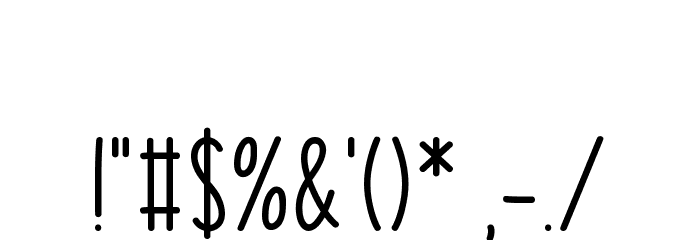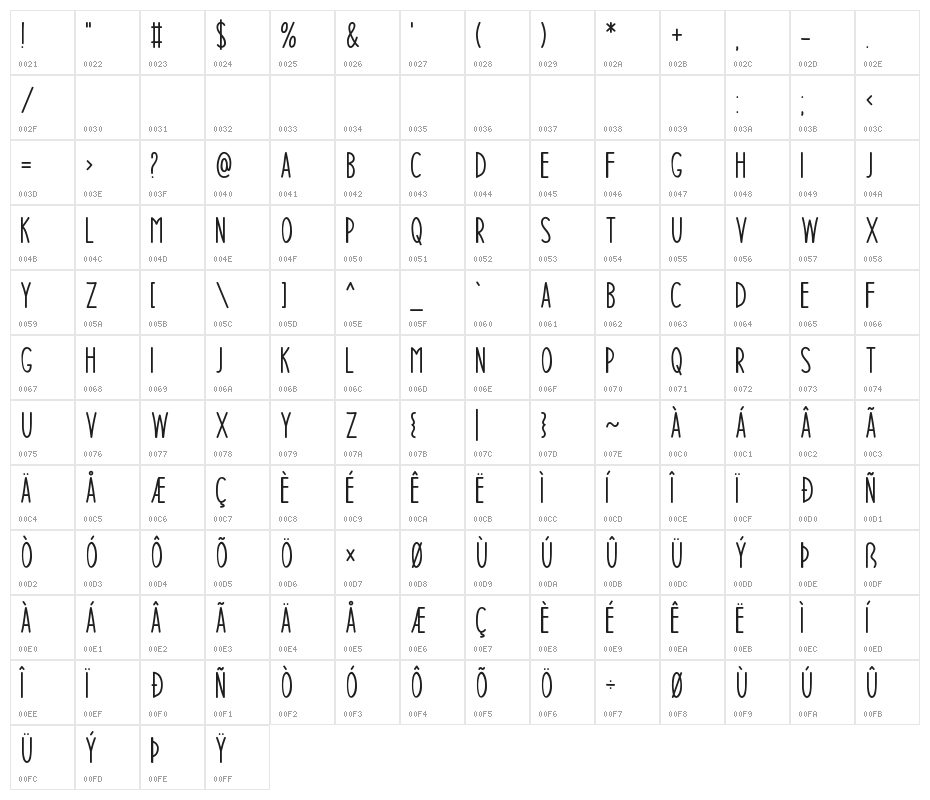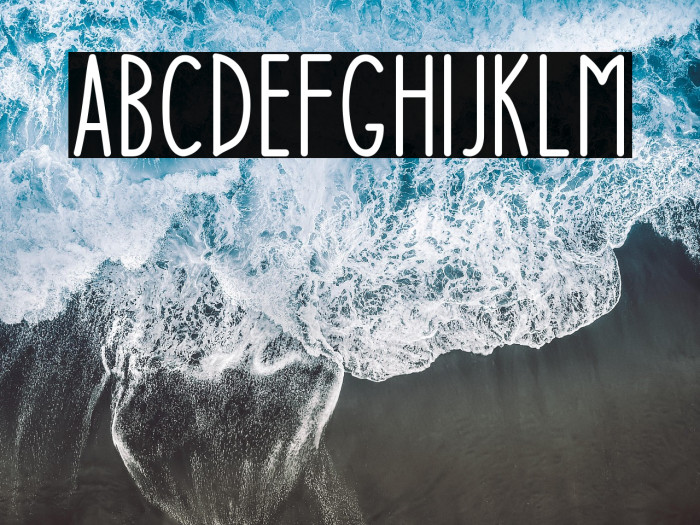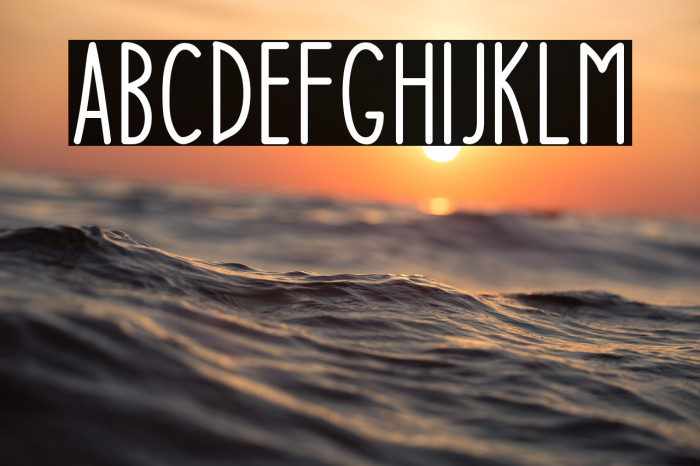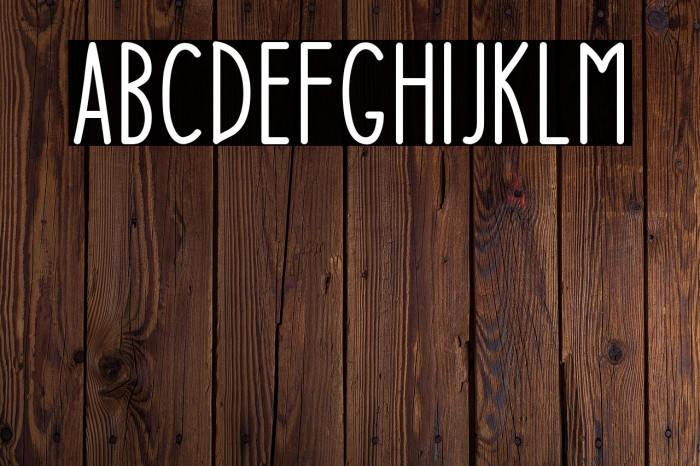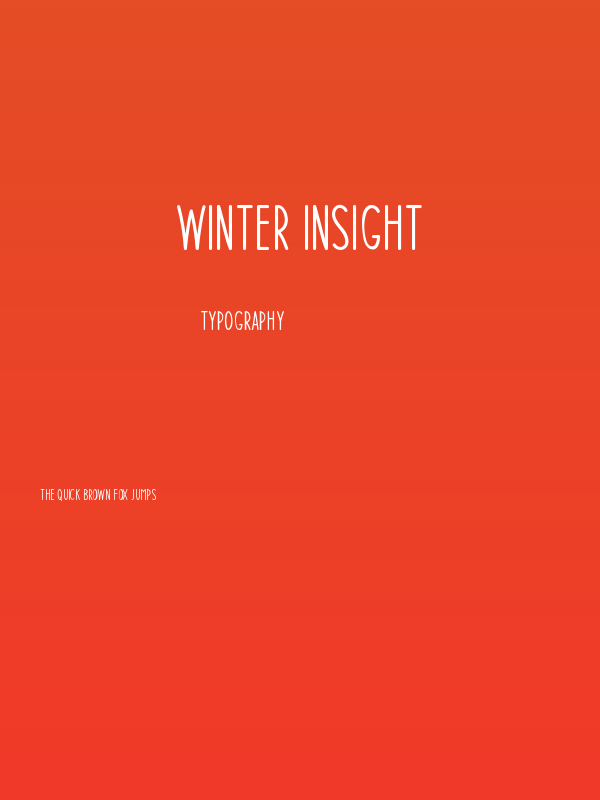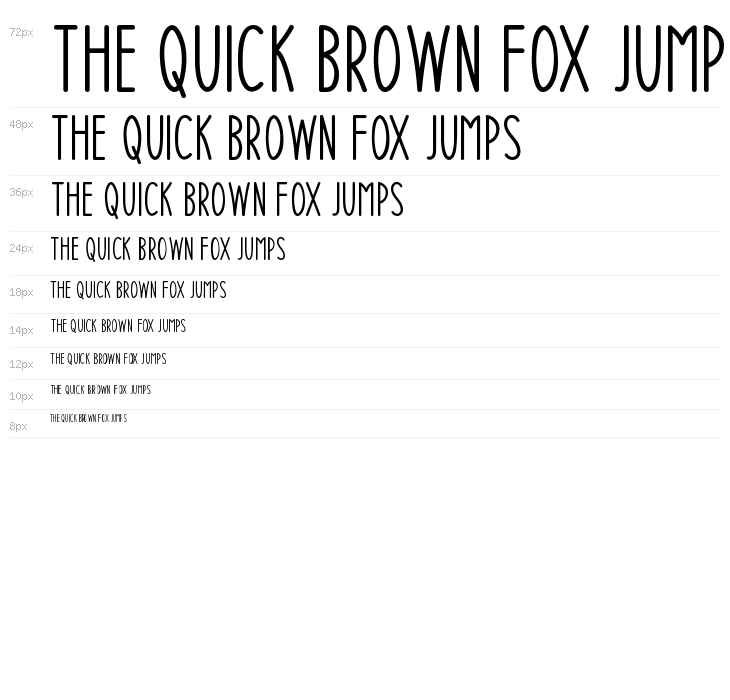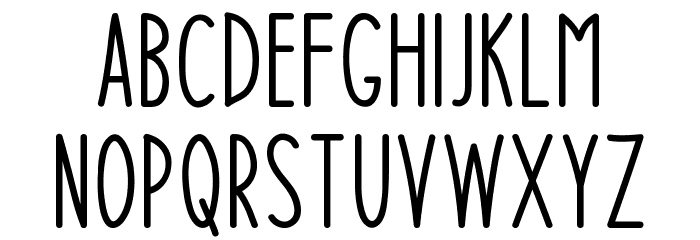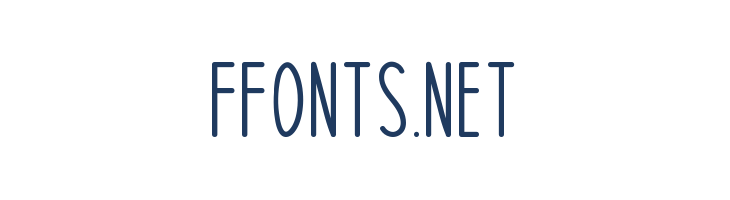
Winter Insight Font
Winter Insight Description
This font features a clean and modern aesthetic with tall, narrow letters that give it a sleek and elegant appearance. The characters are uniformly spaced, contributing to a harmonious and balanced look. The strokes are consistent in width, providing a medium contrast that enhances readability while maintaining a stylish flair. The uppercase and lowercase letters are well-proportioned, and the inclusion of numerals and special characters makes it versatile for various applications. Its simplicity and clarity make it suitable for both digital and print media, offering a contemporary yet timeless feel.
| Proposed Projects | Ideal for branding, editorial design, and digital interfaces where a modern and clean look is desired. |